We’re excited to introduce our unique hand lettered fonts collection. They add a personal touch to your digital design projects. Discover Our Stunning Hand Lettered Font Collection.
Our font collection lets you add a creative flair to your work. It’s perfect for logos, branding, or any design project. We think our fonts will inspire you to try new styles and improve your design.
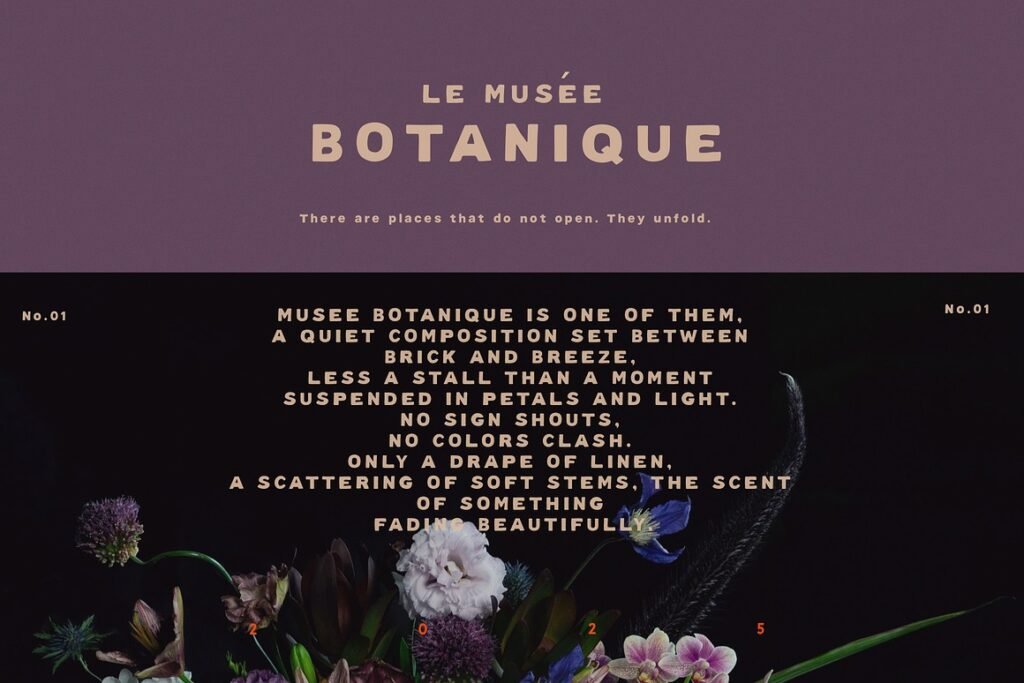
The Beauty and Versatility of Hand Lettered Typography
Our hand lettered fonts add warmth and character to digital projects. They are made to be visually appealing and tell a story. This is at the heart of our font collection.
The Human Touch in Digital Design
In digital design, it’s easy to get lost in uniformity. But our hand lettered typography brings a human touch. It makes designs feel personal and engaging.
This human touch makes our fonts stand out. They’re great for projects needing warmth and authenticity. Our fonts add depth and emotion, unlike generic fonts.
Character Variations and Flourishes
Our hand lettered typography includes character variations and flourishes. These elements boost the aesthetic appeal and offer customization. Designers can tailor their typography to their project’s needs.
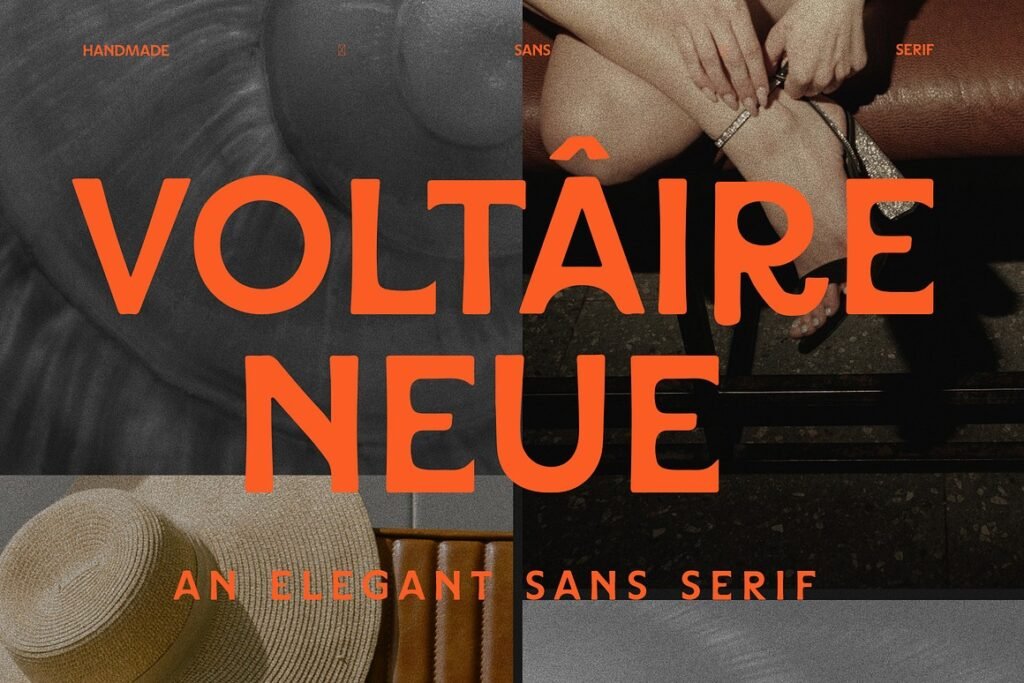
With many character variations, you can create a unique look. Our flourishes add elegance and sophistication. They’re perfect for making a statement in your design. Our fonts can fit any design vision, from classic to modern.
Explore Our Modern Hand Lettered Font Library
Step into the world of hand lettered fonts with us. Every letter is a piece of art. Our library has many styles to fit your needs, so you can find the perfect font for your project.
Elegant Cursive Options
Need something fancy? Our elegant cursive fonts are perfect. They have smooth letters that make your design look classy. Use them for wedding invites, luxury ads, or formal books to make your work stand out.
Casual and Playful Scripts
Looking for something fun? Our casual and playful scripts are great. They’re perfect for brands that want to be friendly or for projects that need a chill vibe. Choose from many styles to add your own flair to your designs.
Our fonts do more than look good. They help tell your story. The right font can show off your brand’s personality, making your content more fun and easy to remember. Discover Our Stunning Hand Lettered Font Collection.\
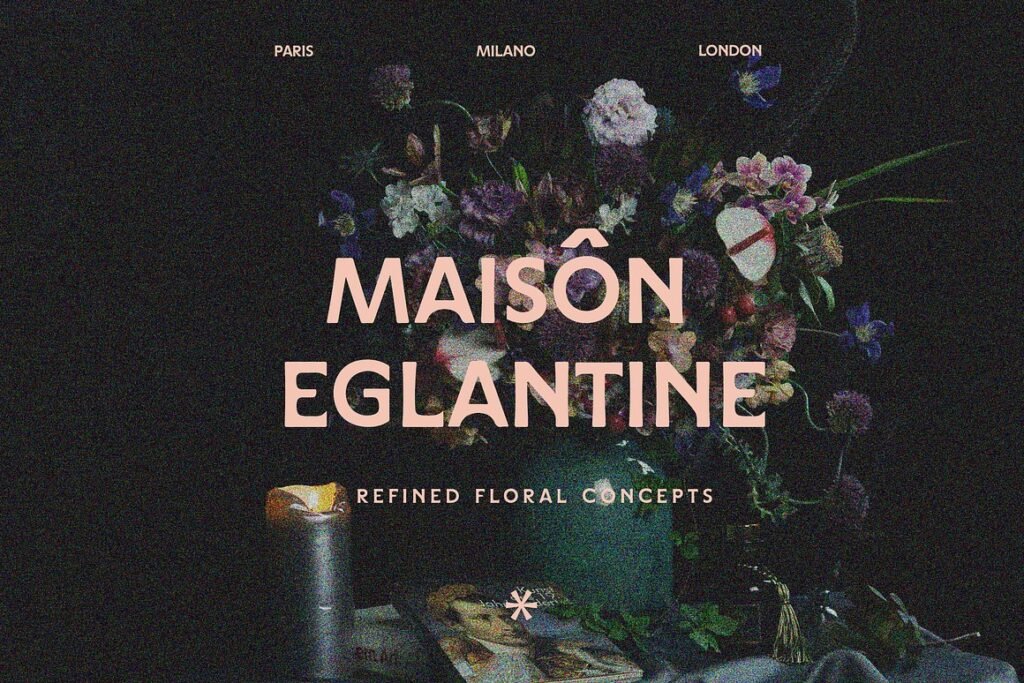
Transform Your Projects with Handcrafted Typography
Exploring hand lettered typography shows its power to make our digital designs better. It adds a special touch to our work, making it stand out.
Our hand lettered font collection sparks creativity and adds a personal touch to your designs. It’s perfect for branding, websites, or marketing campaigns. Our fonts help bring your vision to life.
Try out our hand lettered fonts and see what amazing things you can do in digital design. Handcrafted typography brings a unique flair to your projects, making them unforgettable.
Let’s celebrate the art of hand lettered typography together. See how it can change your digital design projects.